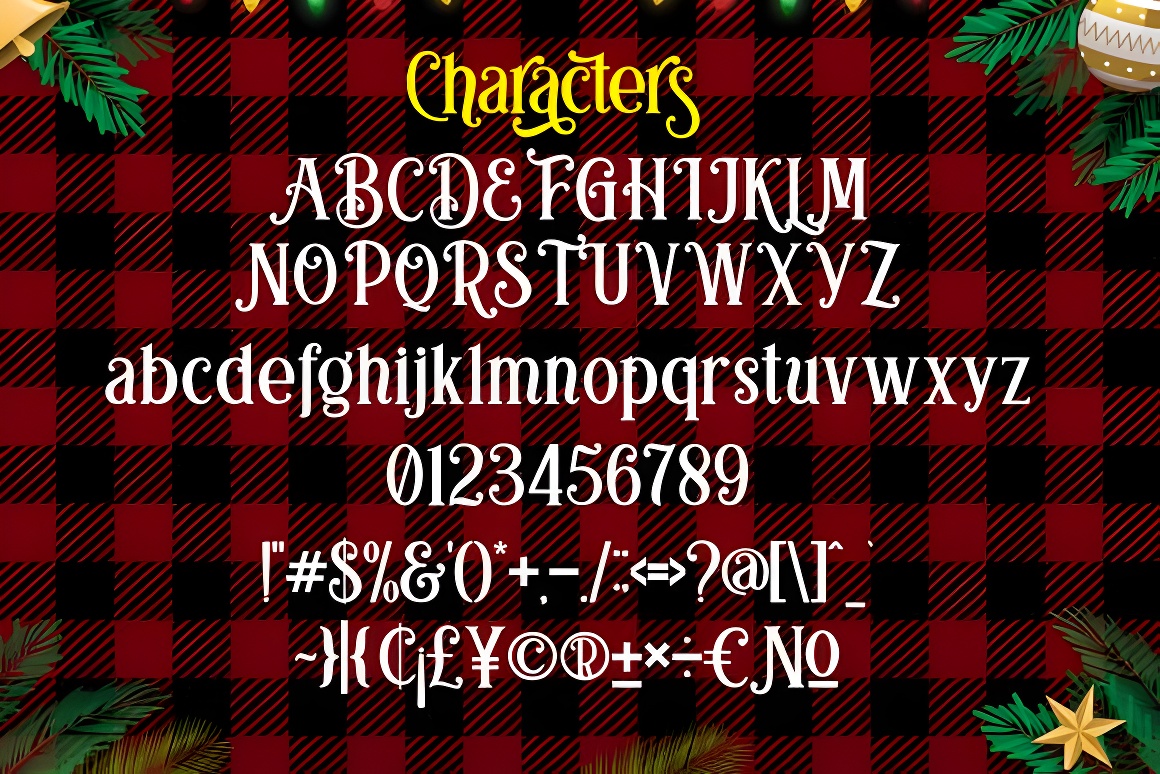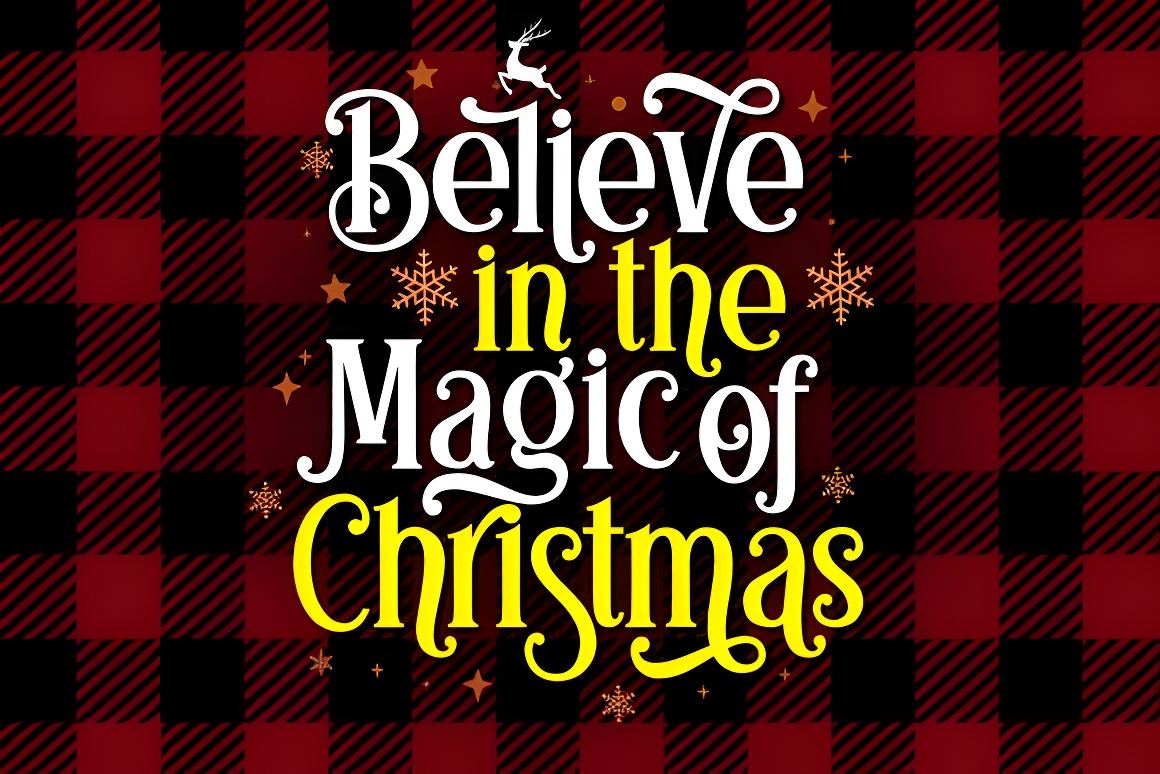
Chasing Christmas Font - Festive Holiday Serif Typeface with Swashes
Festive Christmas serif font featuring playful swashes & glyphs. PUA encoded for easy character access. Perfect for holiday designs, greeting cards, and seasonal projects.